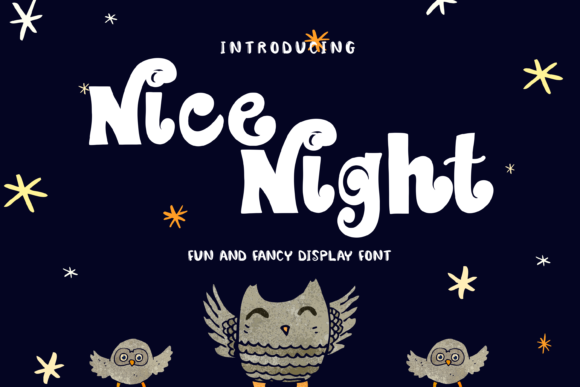
Step into the realm of whimsical artistry and unlock your creative potential with Nice Night Font, a display font that is sure to captivate and inspire. Designed by the talented Rasa, this enchanting font exudes a sense of whimsy and fancy, making it the perfect companion for a wide array of creative endeavors.
With its charming and intricate characters, Nice Night Font adds a touch of magic to any project. Whether you're crafting eye-catching web designs, designing unique cards for special occasions, or creating captivating classroom decorations, this font is sure to leave a lasting impression. Let your imagination soar and explore the endless possibilities that await you with Nice Night Font.
Unlock a world of creativity and transform your designs into works of art. Nice Night Font's versatility extends beyond web designs and artwork; it also lends its charm to Cricut and Silhouette projects, adding a personal touch to home décor, t-shirts, mugs, and more. Unleash your inner artist and turn ordinary objects into extraordinary creations.
Dive into the enchanting world of string art with Nice Night Font, your perfect partner for creating captivating pieces. Its intricate details and flowing lines bring an added dimension to your string art projects, making them truly one-of-a-kind masterpieces. Let your creativity shine through as you weave colorful threads around the delicate curves of Nice Night Font, transforming simple designs into captivating works of art.
With Nice Night Font, the possibilities are endless. Its whimsical nature adds a delightful touch to invitations, social media posts, and logos, making them stand out from the ordinary. Let your brand's personality shine through with this captivating font, leaving a lasting impression on your audience.